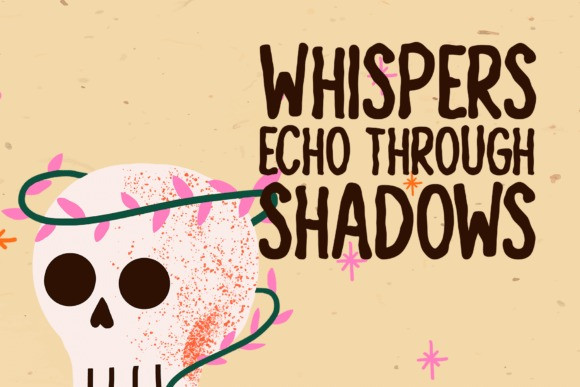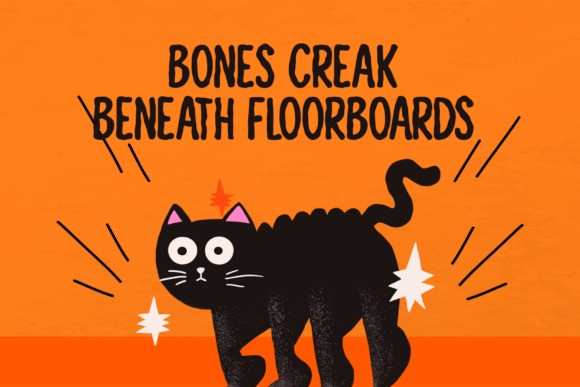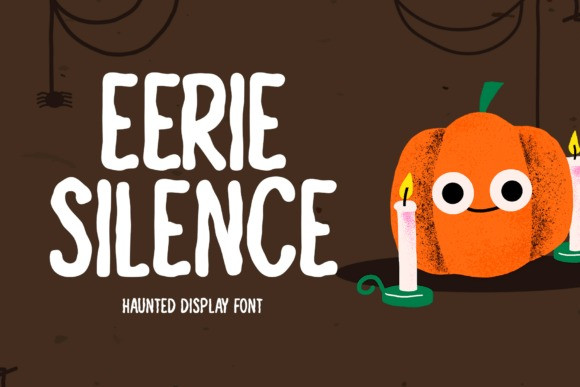
Eerie Silence Font
Eerie Silence Font is your go-to haunted display font, ready to add spooky charm to anything from t-shirts and logos to posters and album covers. Whether it’s Halloween vibes or edgy graphics, this font brings the drama in style.